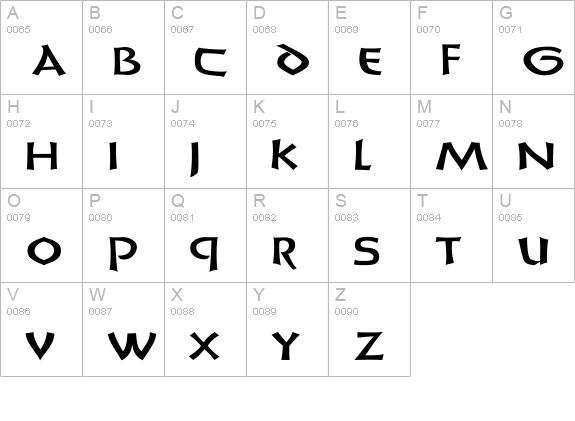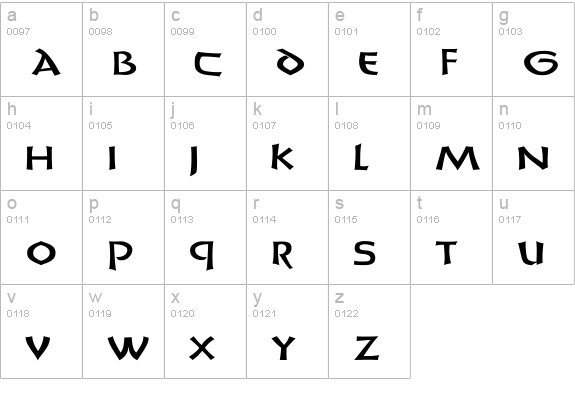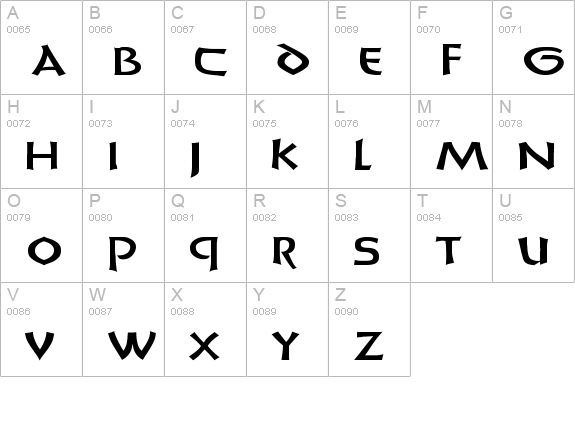
Introducing UnciaDis Ex font, a stunning display typeface that exudes elegance and sophistication. With its unique and intricate letterforms, this font is bound to capture attention and add a touch of class to any design project. Designed with utmost precision and attention to detail, UnciaDis Ex font offers a seamless blend of modernity and vintage charm. Its clean lines and beautifully crafted curves create a harmonious composition that is both visually appealing and highly legible. Perfect for headlines, logos, branding, and various other creative endeavors, UnciaDis Ex font is versatile and adaptable. Its timeless appeal makes it suitable for both digital and print applications, ensuring that your designs stand out in any medium. What's more, UnciaDis Ex font is available for free download exclusively at FontsMarket.com. This means that you can effortlessly incorporate this remarkable typeface into your projects without any financial burden. The generous offer of a free font allows designers, regardless of their budget, to access and utilize this stunning resource. Whether you are a professional designer or a creative enthusiast, UnciaDis Ex font is a must-have addition to your typographic arsenal. Its seamless blend of sophistication and modernity, coupled with its availability as a free download, makes it an invaluable tool for creating visually captivating designs that leave a lasting impression. Download UnciaDis Ex font today from FontsMarket.com and unlock endless possibilities for your creative endeavors. Elevate your designs with this remarkable typeface and witness the transformative power it brings to your projects.